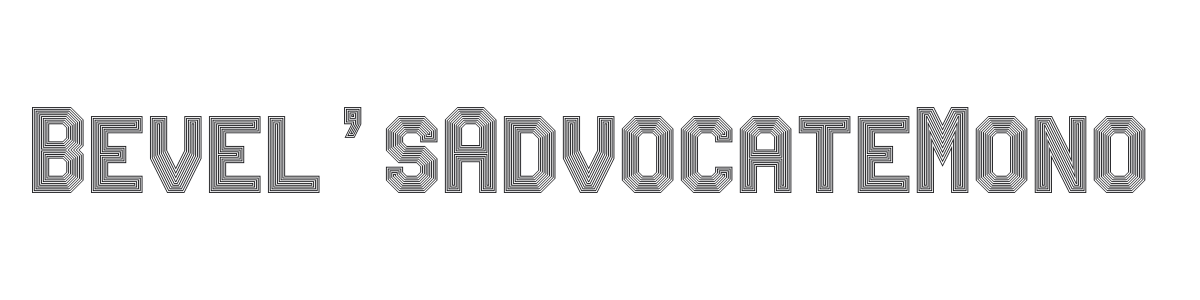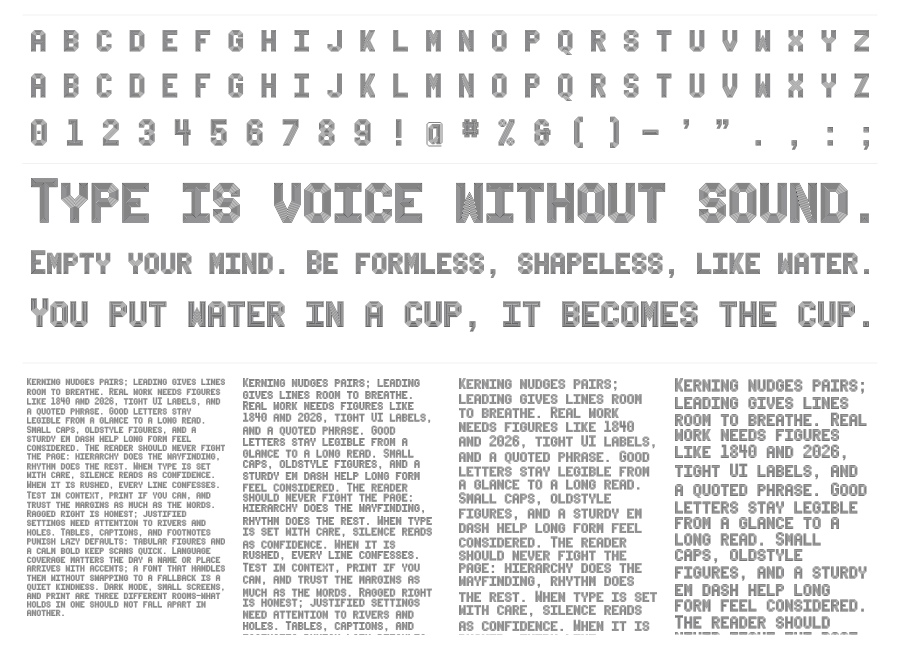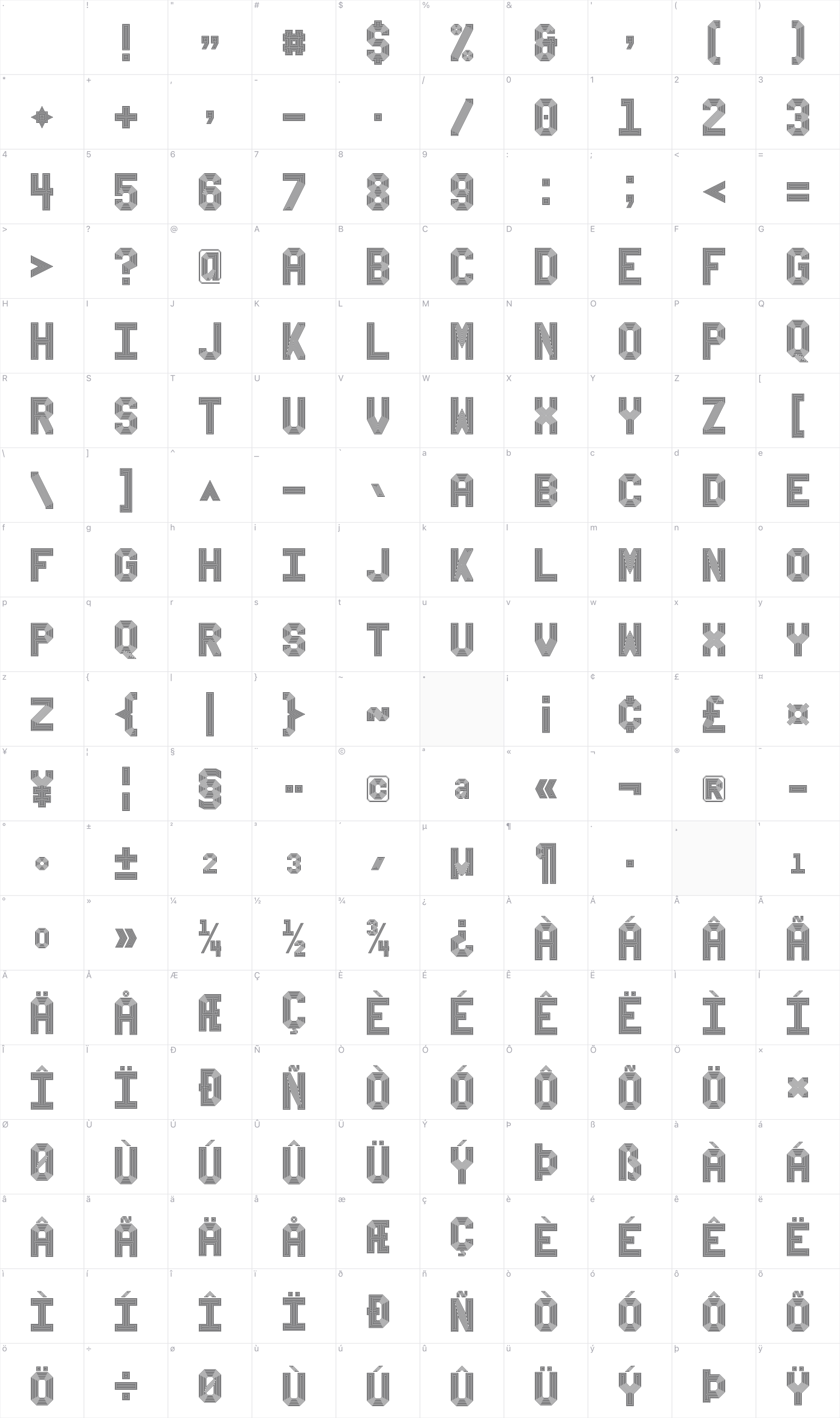
Bevel'sAdvocateMono
Bevel's Advocate Mono is a monospace sans-serif from fontcollector with a distinctive beveled, engraved surface treatment that gives each character a three-dimensional, machined look. The striped facets across the letterforms create the illusion of light hitting angled metal, lending it a technical, almost industrial precision. Uppercase and geometric in construction, it's built for display use: headlines, logos, and anything that needs to feel like it was milled from a solid block rather than drawn.